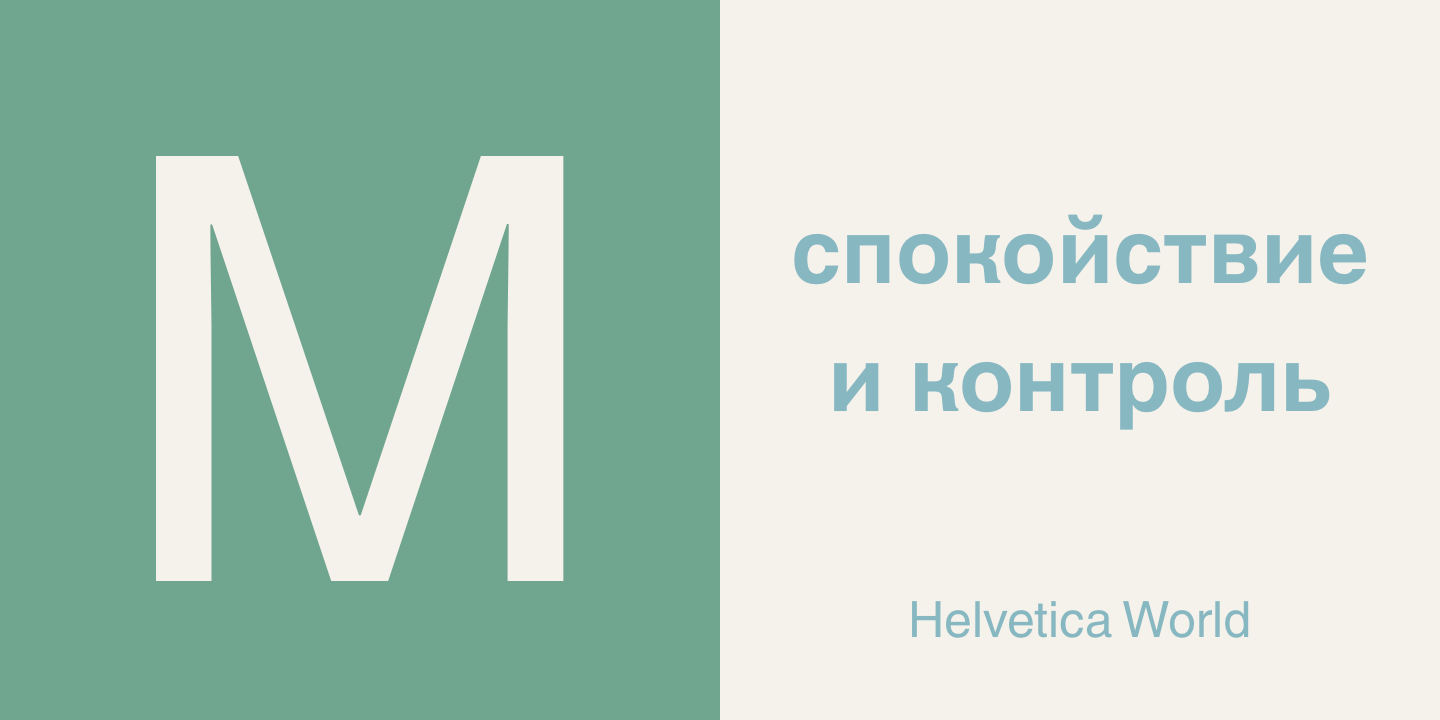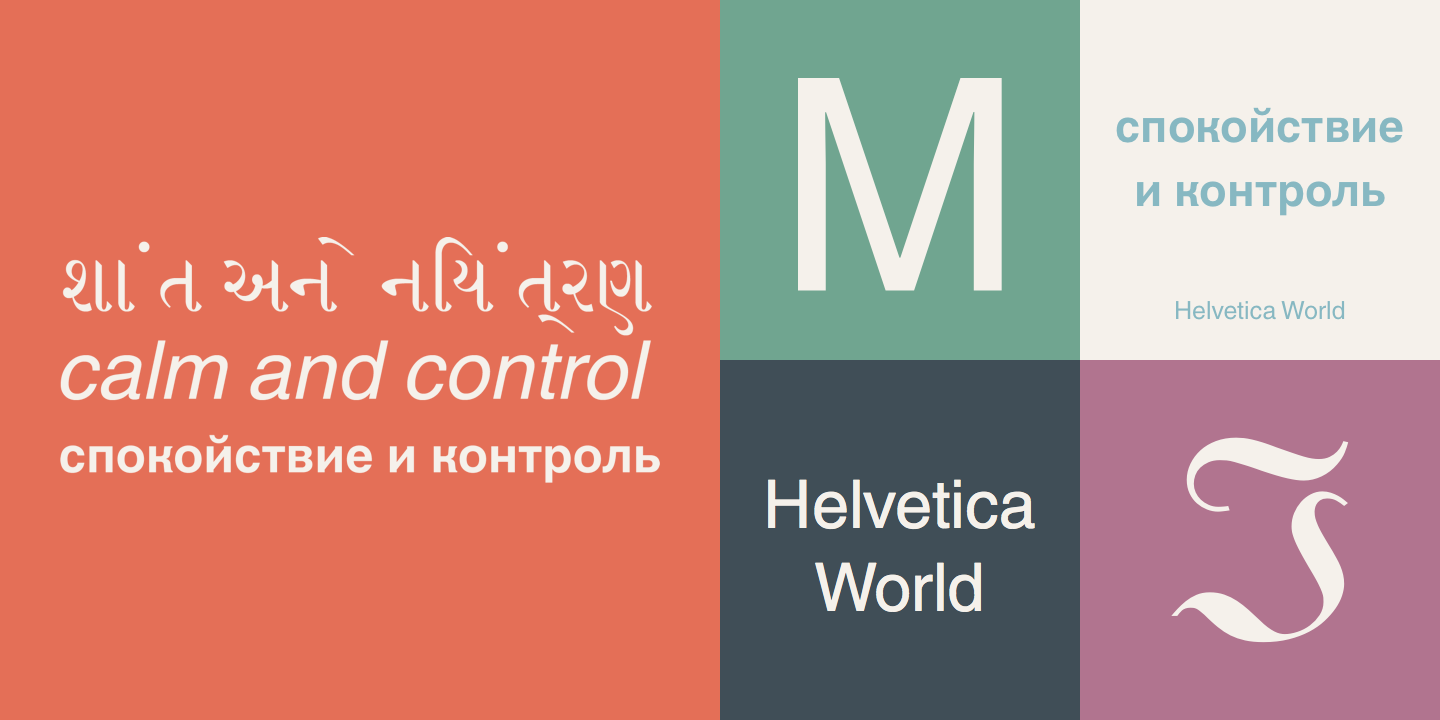
Over the years, the original Helvetica™ family was expanded to include many different weights, but these were not as well coordinated with each other as they might have been. At the beginning of the 21st Century, Linotype released an updated design of Helvetica, the Helvetica World typeface family. This family is much smaller in terms of its number of fonts, but each font makes up for this in terms of language support. Helvetica World supports a number of languages and writing systems from all over the globe.
Arabic, Baltic, Central/Eastern Europe, Cyrillic, Greek, Hebrew, Romanian, Turkish, Vietnamese, Western Europe